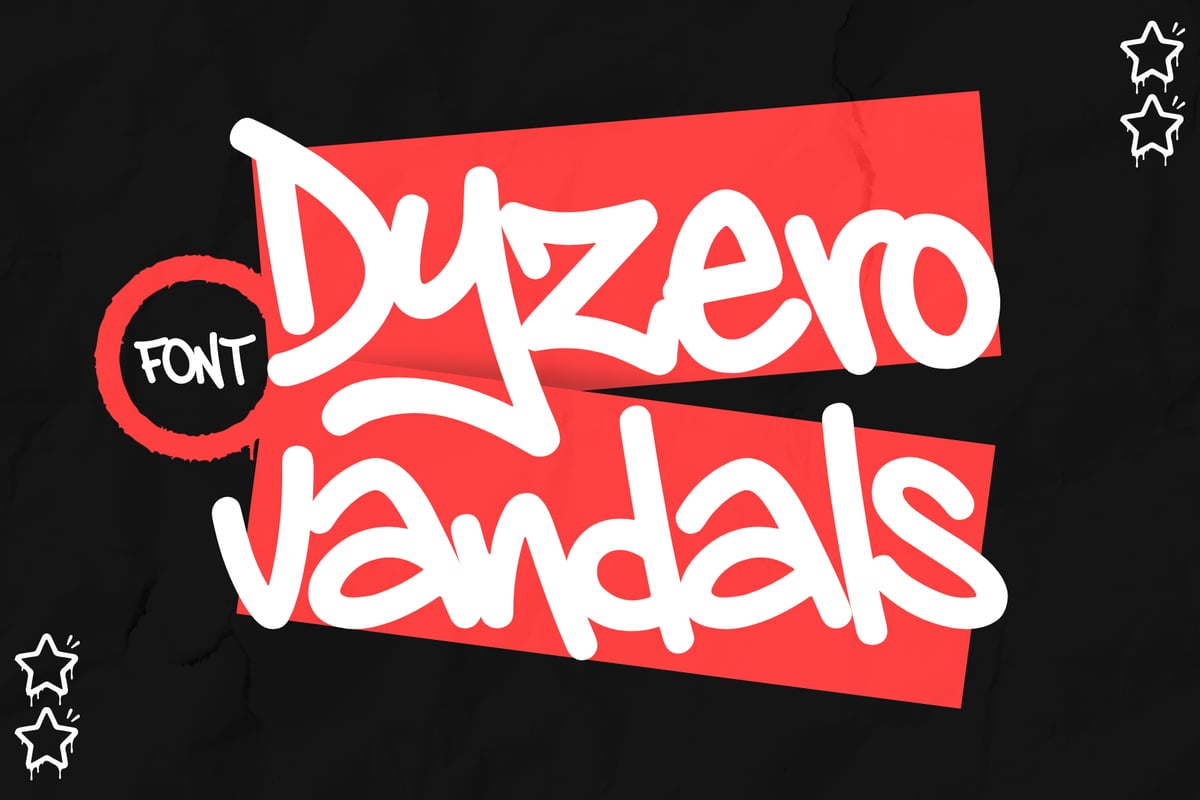
Dyzero Vandals
Dyzero Vandals is a raw and expressive handwritten graffiti tagging font created for designers who love authentic street lettering, fast marker strokes, and rebellious urban energy. Inspired by spontaneous graffiti tags and hand-drawn lettering, Dyzero Vandals combines natural movement with an energetic, imperfect character that makes every word feel unique. The font includes uppercase, lowercase, numbers, punctuation, and multilingual support, making it versatile for a wide range of creative p